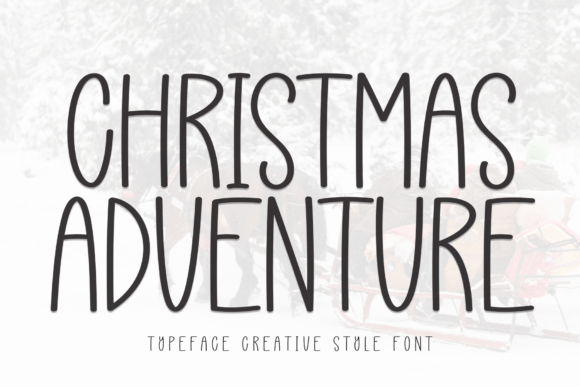
Introducing Christmas Adventure Font, a delightful and charming script font that will add a touch of magic to your designs! Created by Creativewhitee, this font is the perfect choice for creating memorable and enchanting experiences on your wedding website. With its natural and unique style, Christmas Adventure Font will capture hearts and ignite the festive spirit in your audience.
Imagine the joy and excitement your visitors will feel when they encounter your wedding website adorned with the whimsical elegance of Christmas Adventure Font. Its handwritten design exudes warmth and friendliness, creating an instant connection with your audience. This font will transform your website into a captivating wonderland, inviting visitors to embark on an unforgettable journey.
Christmas Adventure Font is exceptionally versatile, adapting effortlessly to a wide range of design projects. From wedding invitations and greeting cards to social media graphics and branding materials, this font will elevate your creations to new heights of elegance and sophistication. Its timeless appeal ensures that your designs will stand the test of time, making it the perfect choice for those seeking a font that embodies both tradition and innovation.
With Christmas Adventure Font, the possibilities are endless. Let your imagination run wild as you explore the myriad of design options this font offers. Craft stunning wedding invitations that evoke a sense of romance and magic. Capture the essence of the holiday season with festive greeting cards that bring joy to every recipient. Create captivating social media graphics that inspire and engage your audience. Whatever your creative vision may be, Christmas Adventure Font will bring it to life with its exceptional charm.
But it's not just about aesthetics. Christmas Adventure Font is also designed to optimize your online presence. Its keyword-rich nature ensures that your website will rank higher in search results, making it easier for potential customers to find you. With the tagline "Best Font For Wedding Website," Christmas Adventure Font is specifically tailored to cater to the needs of couples planning their special day. By incorporating this font into your wedding website, you'll instantly capture the attention of brides and grooms-to-be who are searching for that perfect touch of elegance.
In conclusion, Christmas Adventure Font is the epitome of enchantment and sophistication. Its natural and unique style, coupled with its versatility and search engine optimization, make it the ultimate choice for anyone looking to create a captivating online presence. Let your creativity soar and infuse your designs with the magic of Christmas Adventure Font. Unlock the potential of your wedding website and captivate your audience with this extraordinary font.